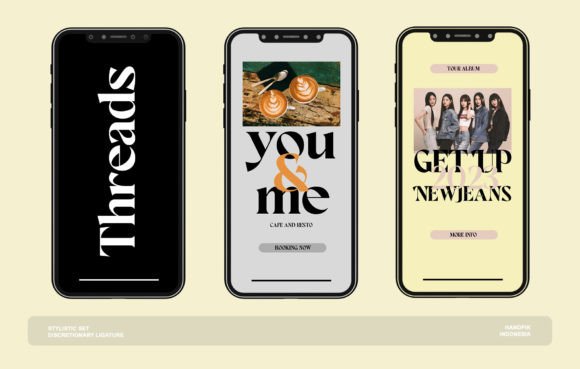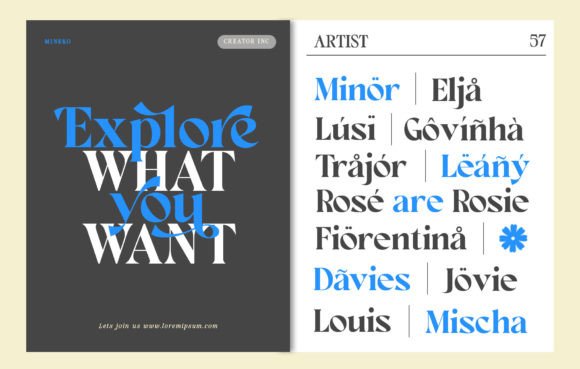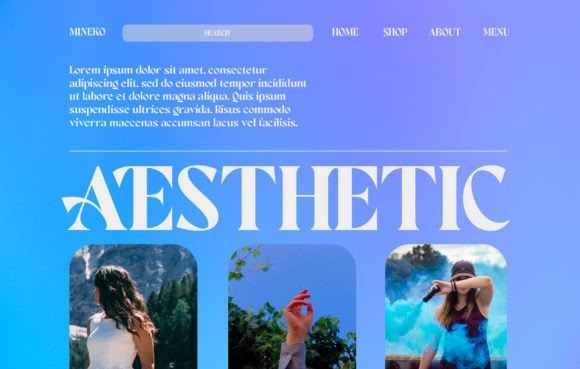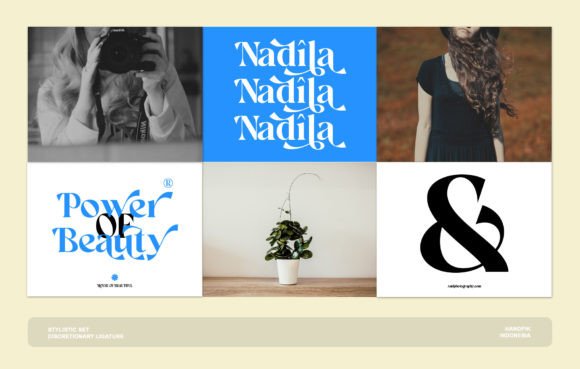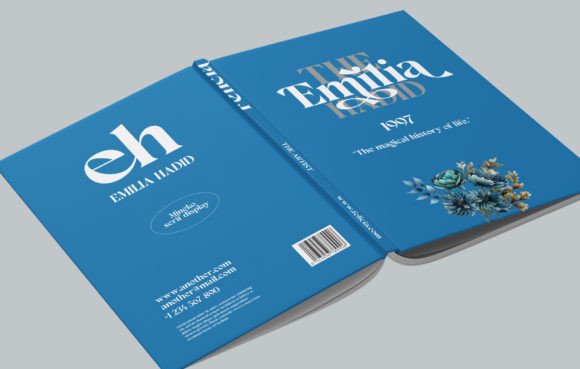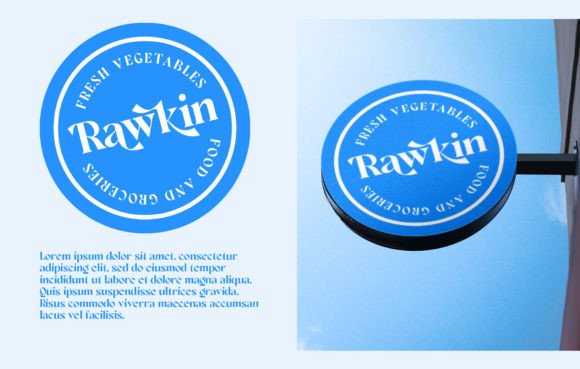
Introduction to Mineko Font
As a designer, there’s nothing quite like the thrill of discovering a new font that sparks creativity and elevates your project to the next level. For me, that moment came when I stumbled upon the Mineko Font – a stunning serif font that effortlessly blends classic elegance with modern sophistication. Its refined serifs and well-proportioned letterforms make it the perfect addition to any creative project, from branding and editorial work to luxury designs.
With the Mineko Font, you can infuse your designs with a touch of timeless beauty and sophistication, making it an invaluable resource for designers. Whether you’re working on a high-end branding project or creating a beautiful editorial layout, this font is sure to impress. And the best part? It’s a free download, making it accessible to designers of all levels. Whether you’re a seasoned pro or just starting out, the Mineko Font is a valuable addition to your design toolkit.
Key Features of Mineko Font
- Unique Japanese-inspired design, ideal for creative projects and design resources.
- Perfect for use in logos, branding materials, and other visual elements that require a touch of Japanese culture and elegance.
- Perfect for designers and artists working on creative projects, Mineko Font is a valuable design resource for those seeking unique and authentic Japanese-inspired typography.
Honest Review: Mineko Font
I recently had the opportunity to use the Mineko Font in one of my design projects and I must say, it was a great experience. The Mineko Font is a high-quality design resource that offers a unique and playful touch to any creative project.
What works well about the Mineko Font is its versatility and the variety of styles it offers. It’s perfect for designers who want to add a touch of elegance and sophistication to their designs, and it’s also great for creating fun and playful graphics. The font is available for free download, which is a huge plus for designers on a budget.
- ✨ High-quality design resource
- ✨ Versatile and playful styles
One of the limitations of the Mineko Font is that it doesn’t offer a lot of customization options. If you’re looking for a font that can be heavily modified to fit your design needs, you might want to look elsewhere.
Overall, I was impressed with the Mineko Font and would definitely use it again in future design projects. It’s a great resource for designers who want to add a touch of whimsy and fun to their designs.
Common Use Cases for Mineko Font
Mineko Font is perfect for use in a variety of creative projects, including graphic design, digital art, and even web design. Its high quality and transparent background make it ideal for use in backgrounds, overlays, and other design elements.